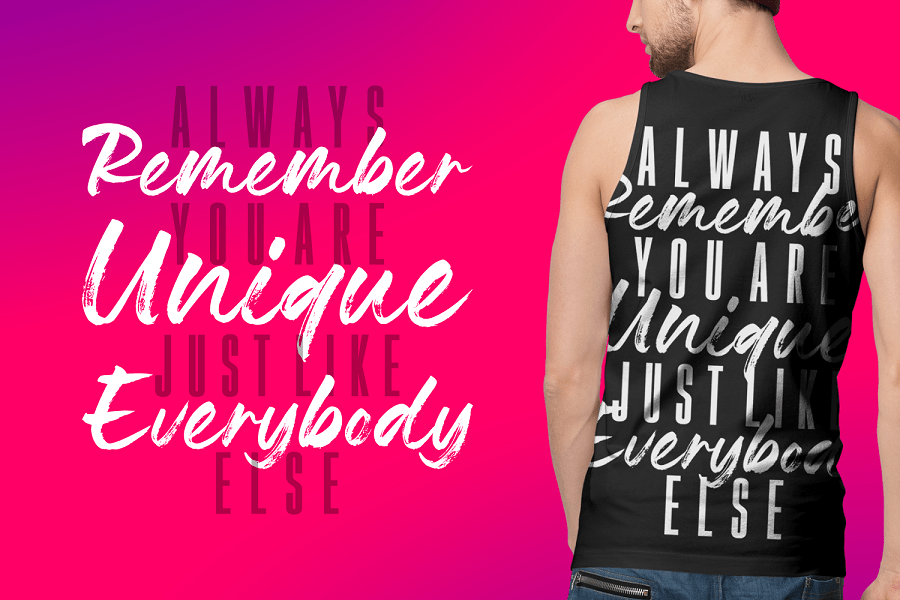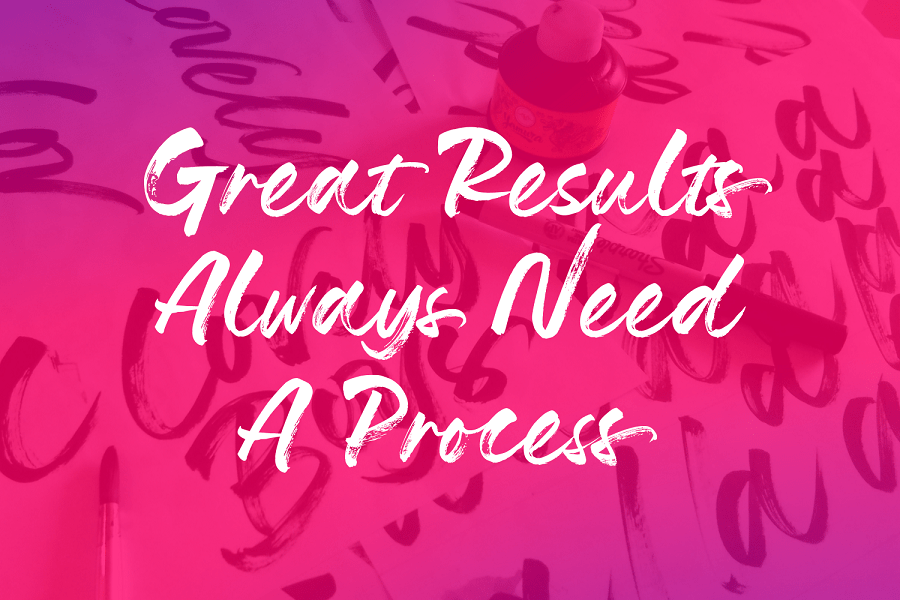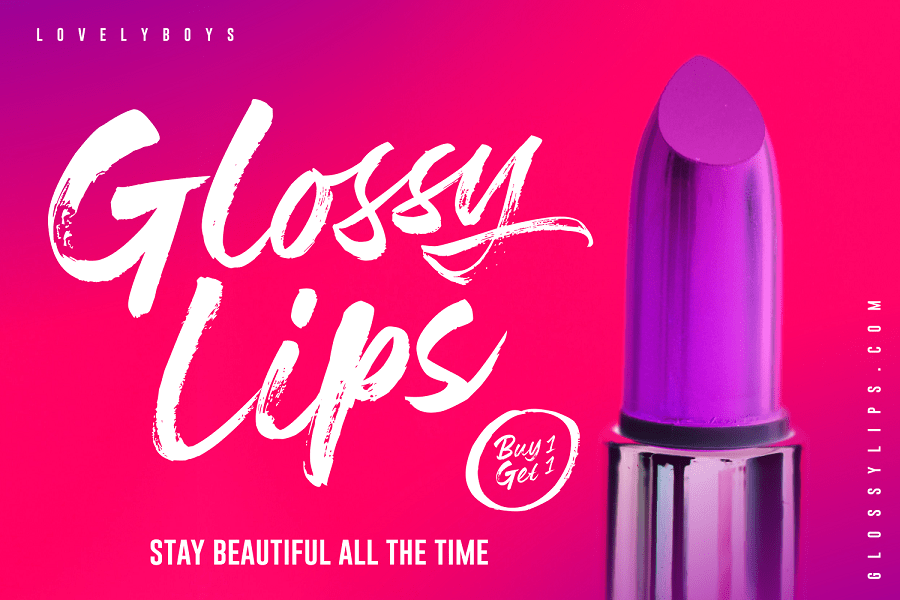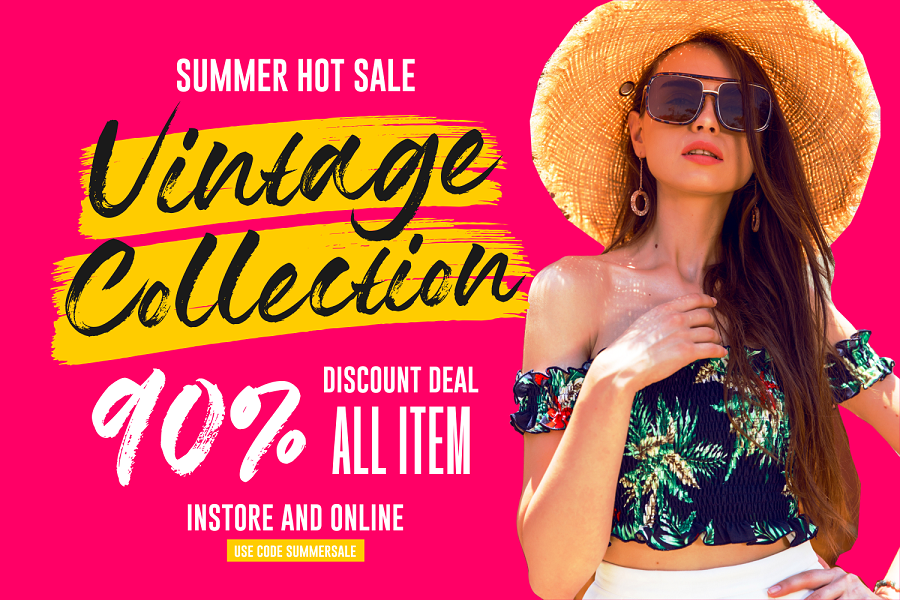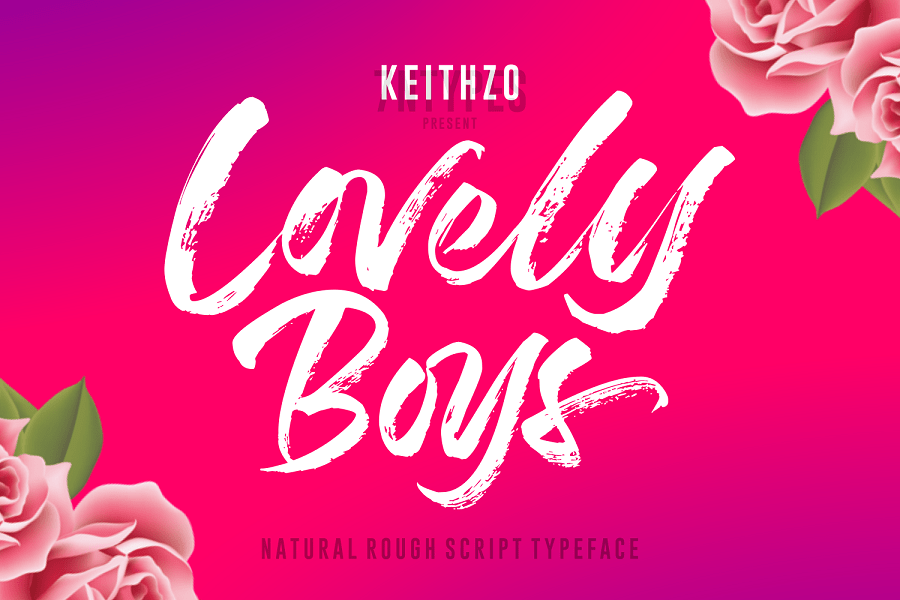
Lovely Boys Brush Font – Free Demo
Hello Font Lovers! inspired by natural brush typography. Written in quick motion using a slightly dry brush pen. Introducing Lovely Boys Font. It is design and shared by Keithzo (7NTypes). Lovely Boys Brush Font is a natural script font. It has a rough look which will stand out in any design! Comes with uppercase and lowercase letters, large sets and lowercase sets of international flying machines, numbers, and languages that can be used for international languages.